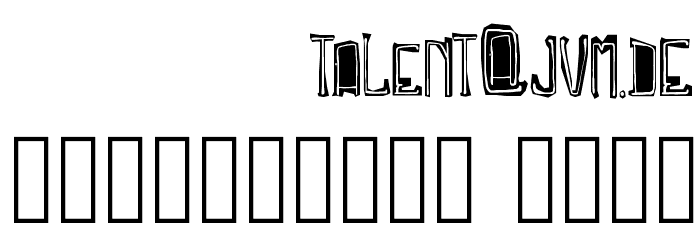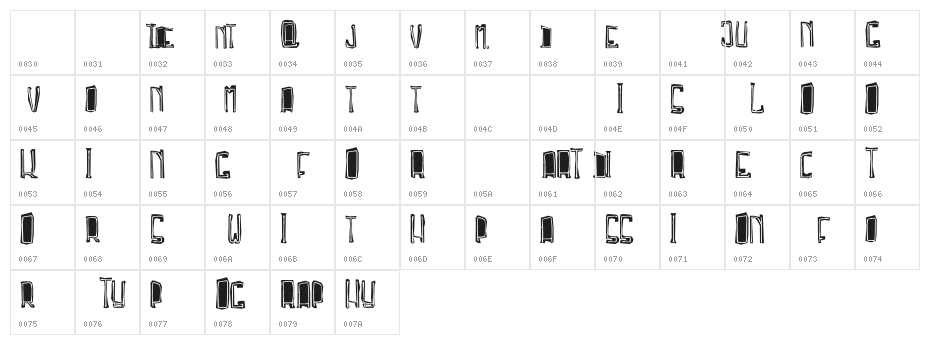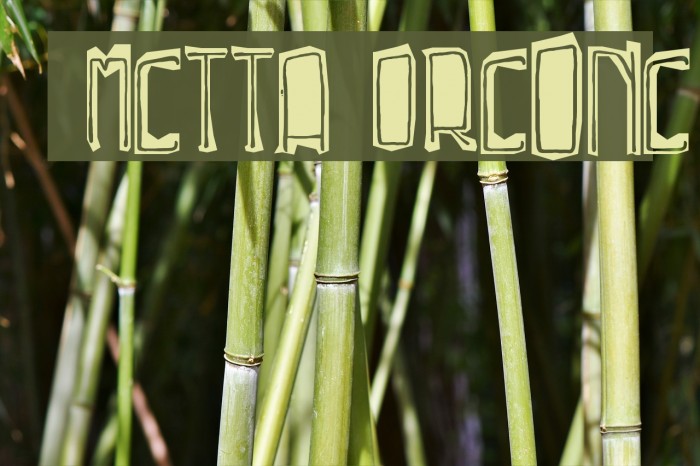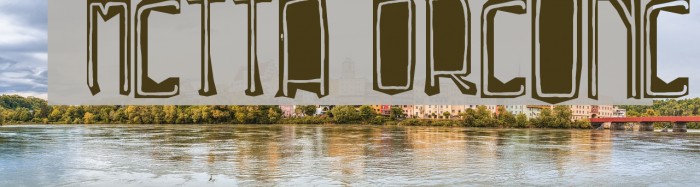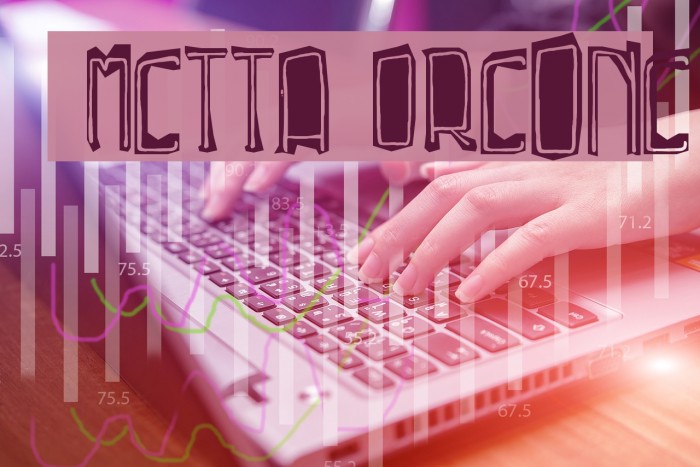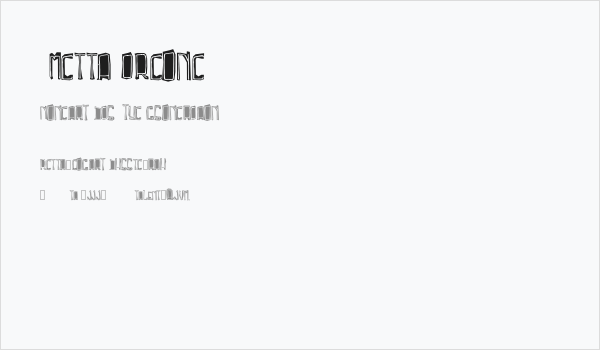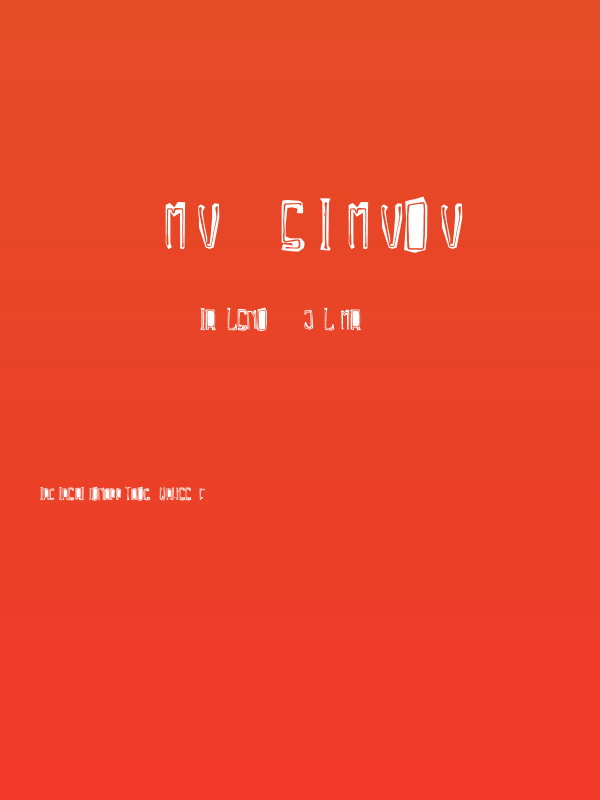
Hello there Font
Hello there Description
This font features a bold, artistic style with a hand-drawn appearance. The letters are uniquely shaped with irregular edges, giving them a dynamic and creative look. The strokes are thick and uneven, adding to the font's distinctive character. The uppercase letters are particularly striking, with a playful and unconventional design that captures attention. The font's overall appearance is both modern and artistic, making it suitable for projects that require a bold and creative touch.
| Proposed Projects | Ideal for artistic posters, creative branding, unique logos, and eye-catching headlines. |